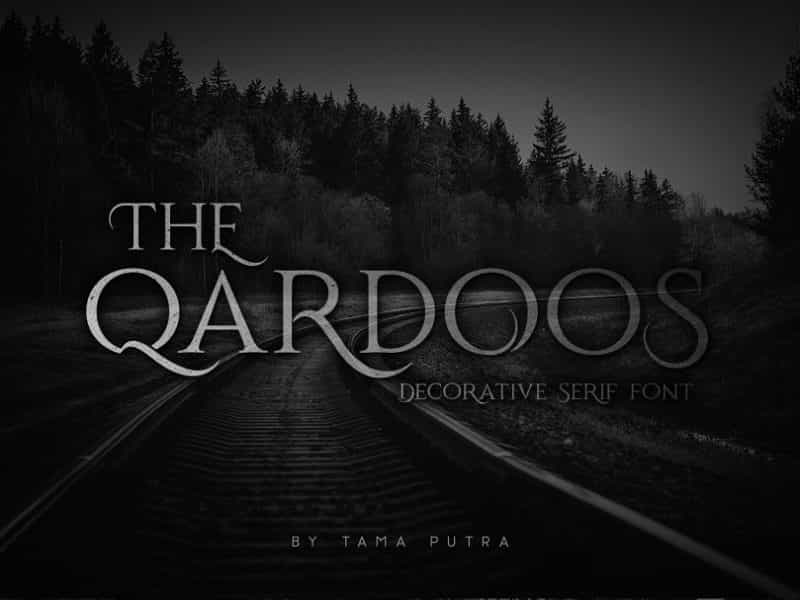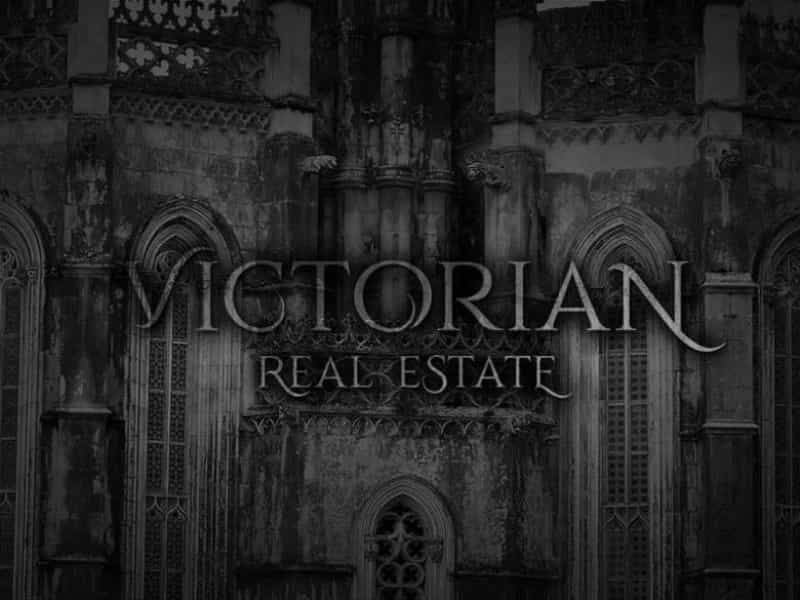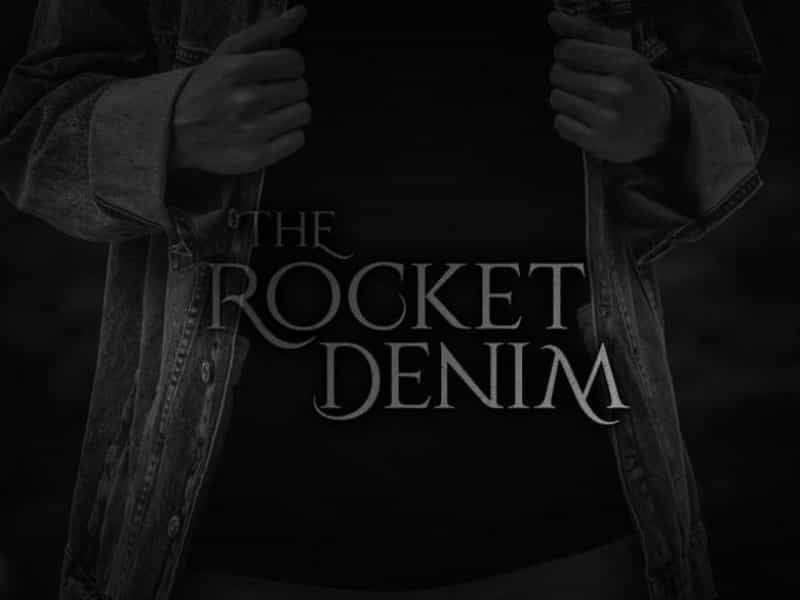
Introducing Qardoos Font. Qardoos is a display serif typeface. The Qardoos typeface is multi-lingual and currency support, numerals, punctuations. Qardoos font is very suitable for your branding project, tshirt printing, book cover, film title and and many more that need vintage taste :(End of the speech).